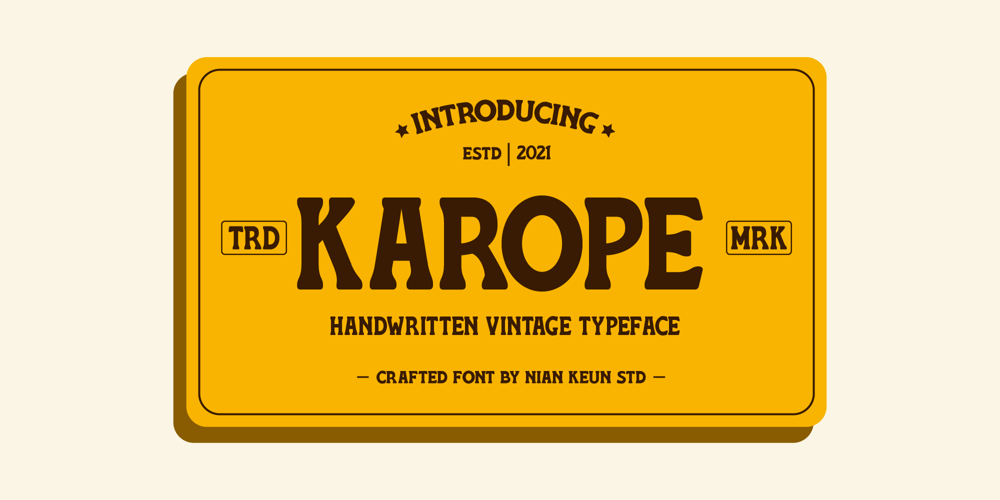
Karope Font Family was designed by Mugi Raharjo and published by Nian Keun Studio. Karope contains 1 styles and family package options. Karepo is a remarkably cool and dynamic serif font designed to elevate the visual appeal of your display. This font brings a sense of modernity and vitality to your designs, making them more captivating and engaging. Ideal for graphic design, social media, and branding projects, Karepo seamlessly integrates into the contemporary design landscape, adding a touch of sophistication and charm. Elevate your visual communication with this versatile serif font, perfect for creating a lasting impact across various platforms.Thank you for coming to my shop and enjoying other fonts.